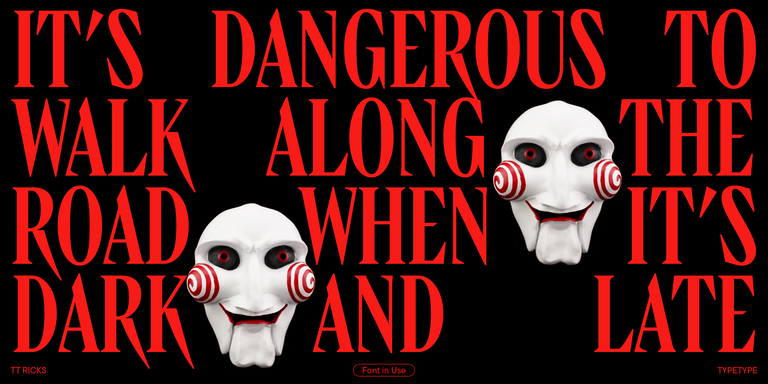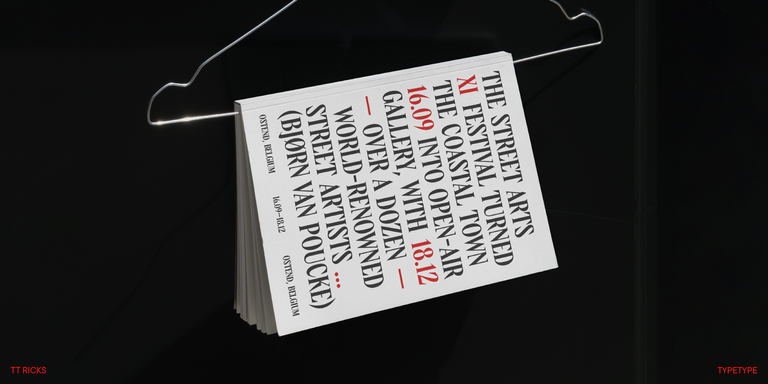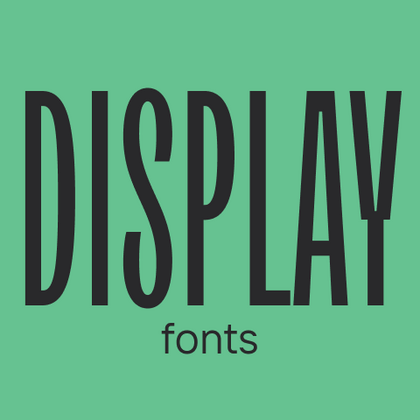
TT Polihaus is an experimental sans serif that, at first glance, looks ordinary, but then breaks apart, transforming into a stencil pattern.
Display Fonts
Display fonts form a whole group of fonts that differ in character and style. Although display fonts may vary significantly in appearance, they are distinguishable by several key features:
- large point sizes, often starting from size 14 and above;
- original design, which can manifest itself in details, like serif graphics, or the original idea of a type designer: an unusual and recognizable style.
These fonts are intended for headings, advertising, and communication materials such as banners, printing products, and merchandise. They can highlight a part of a text to emphasize a phrase.
Display fonts are not suitable for running text; therefore, they are used together with text fonts. Display typefaces have more eccentric, expressive designs, even if designed to complement a text font.
This type of font may have a formal or informal appearance, reflect any mood, and adapt to the particular project’s tasks and needs. Many brands purchase a display typeface designed specifically for them, serving as an element of their brand identity.
In the TypeType collection, there is a variety of display fonts with different styles and moods. Each font has its own peculiarities and visual features. The most popular display fonts made by TypeType are TT Travels Next, TT Ricordi Marmo, TT Globs, and TT Fors. Among the unusual ones, you will find TT Geekette, TT Frantz, and TT Milks.
TT Nooks Serif is a display modern serif with a slight touch of egocentricity. It has a sharp and firm, yet elegant and stately character.
TT Nooks Script features a unique design that has no direct analogs.
TT Qurdisma is a narrow and dense decorative font reminiscent of a whimsical plant. The winding, smooth contours give rise to a botanical ornament.
TT Dott is an experimental pixel grotesque where a circle is used as the base for the pixel. It is a fluid and unusual display font, evoking associations with embroidery and techno parties all at once.
TT Regins is a Scottish modern serif. Striking contrast and sharp triangular serifs give this font a stern and commanding character, while refined forms, enlarged lowercase letters, and slightly condensed, static proportions add grace to its design.
TT FRANTZ IS AN EXPERIMENTAL VARIABLE FONT, DISTINGUISHED BY ITS SLIMNESS AND LIGHTNESS. THE VARIATION IN THE FONT AFFECTS THE CHANGE IN THE HEIGHT OF THE MEAN LINE—BY MOVING THE AXIS ADJUSTMENT SLIDER YOU CAN EASILY RAISE OR LOWER THE MEAN LINE OF THE FONT.
TT Quaris is an exquisite, modern high-contrast sans whose design balances between soft and sharp. The glyph shapes in the font are fluid and tend towards roundness, yet there are also sharp elements.
TT Ricordi Allegria is a sleek and intelligent contemporary Florentine grotesque.
TT Bakers is a fluid serif with a gentle and lively character. This font is like freshly baked goods: it`s warm and soft, especially in its bolder weights.
TT Modernoir is a display sans serif with dynamic proportions. Fluid lines and delicate Art Nouveau forms in this typeface blend seamlessly with the rhythmic flow and improvisational freedom of jazz.
TT Ricordi Greto is an experimental project, inspired by a floor plaque dating from 1423 found in the Basilica di Santa Croce, Florence.
TT Firs Neue is a contemporary reincarnation of the good old TT Firs sans serif.
TT Marks delivers a script with dynamic rhythm, heartfelt character, and nostalgic appeal inspired by the classic art of American sign painting. This craft, where skilled artists hand-painted storefront signage with brushes and careful technique, is experiencing a well-deserved renaissance in today`s design world.
TT Disruptors is a ductile marker-drawn handwritten typeface. Its design is one-of-a-kind: worn edges, varying stroke thickness, and elongated ascenders and descenders give it a lively, dynamic texture and handcrafted feel. The personality of this font is spirited and emotional, yet warm and soulful.
TT Gentlemens is a dynamic handwritten typeface that combines the seriousness and precision in writing with elegance and sophistication. It has the character and style of a true gentleman: restrained and always appropriate, yet confident and striking.
TT Drugs is a typeface that doesn`t feature serifs but stands out for its high contrast.
TT Gertika is a geometric sans serif with a dynamic character and a dancing rhythm. This font`s idea originates from the lettering featured on an American poster from the late 1930s.
TT Biersal is a display sans serif with a free-spirited, playful, and adventurous nature. The concept of this font was sparked by a German poster from the early 1930s.
TT Paplane is a squared-looking display sans serif.
TT Cometus is an expressive typeface that captivates from the first time.